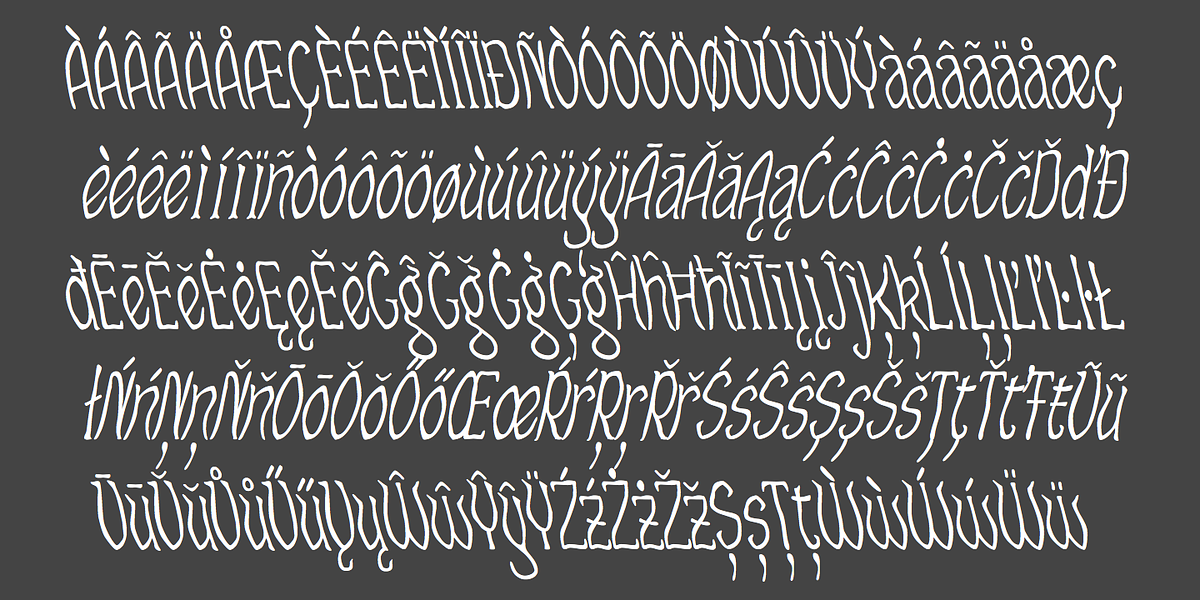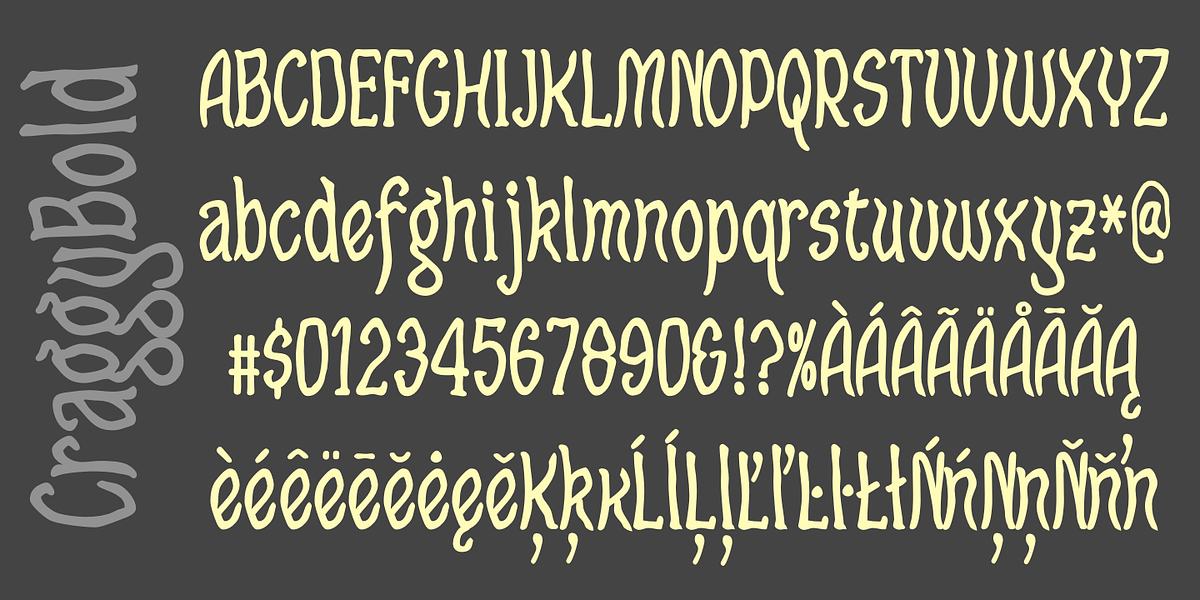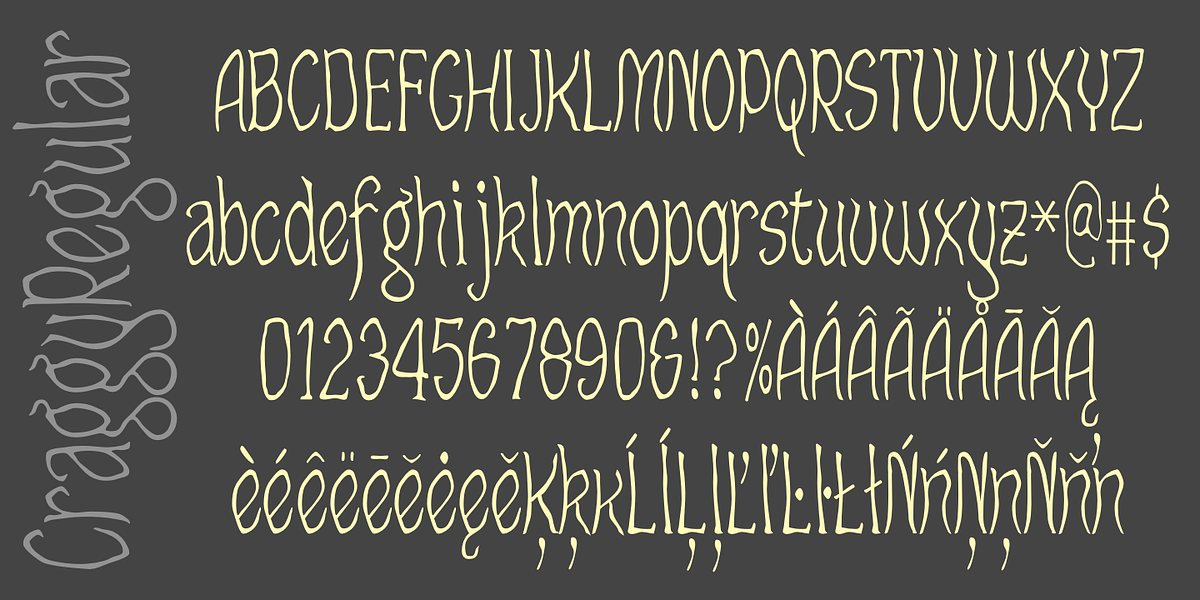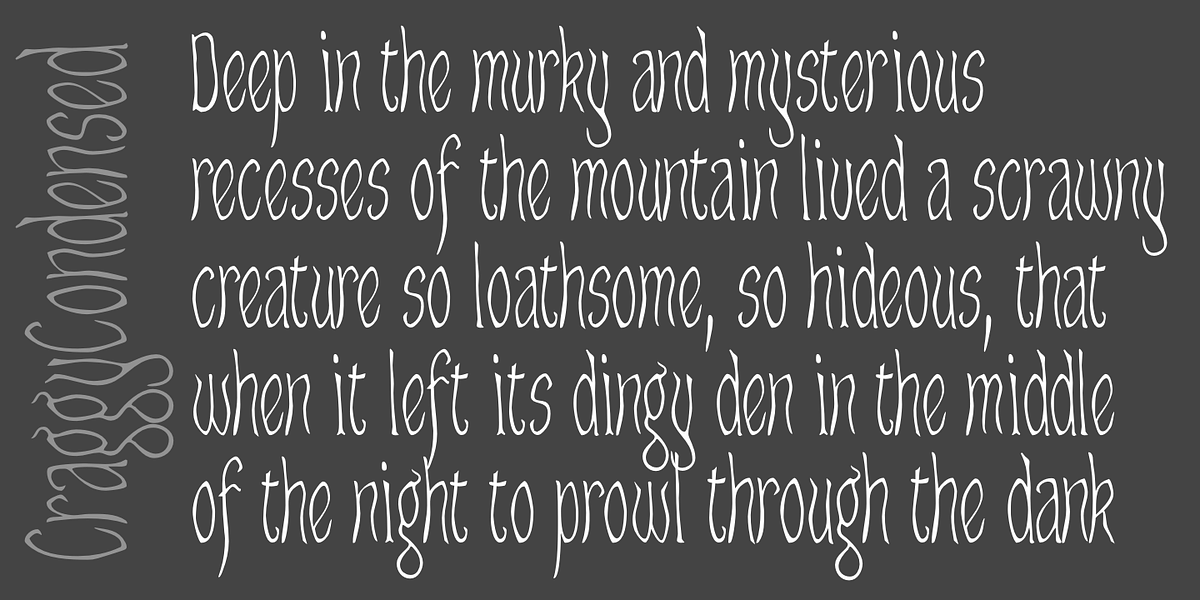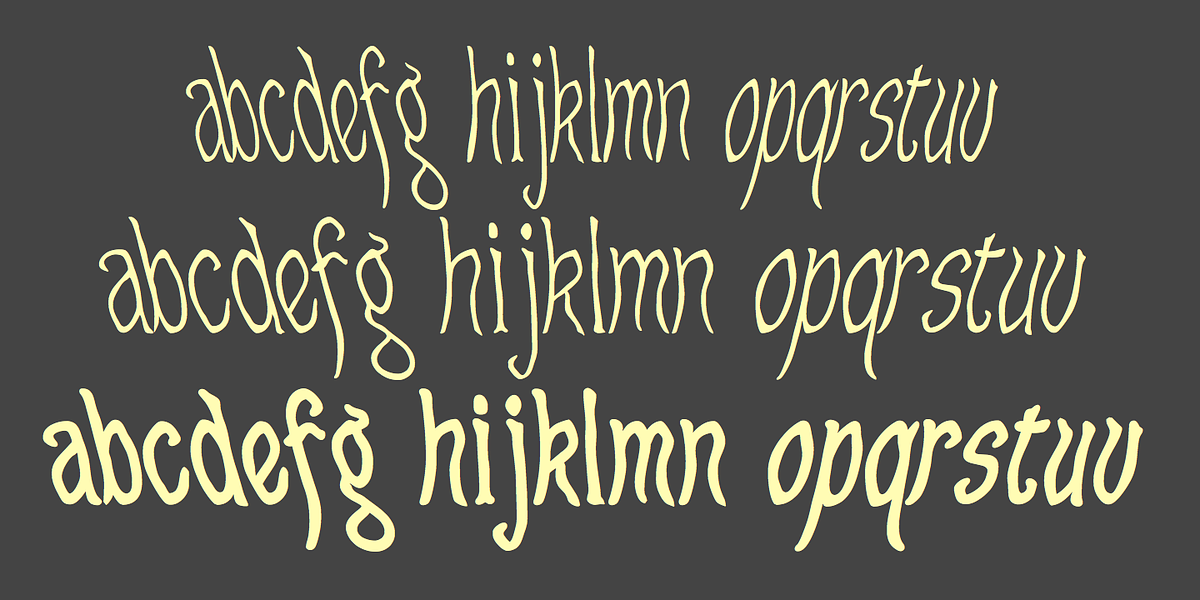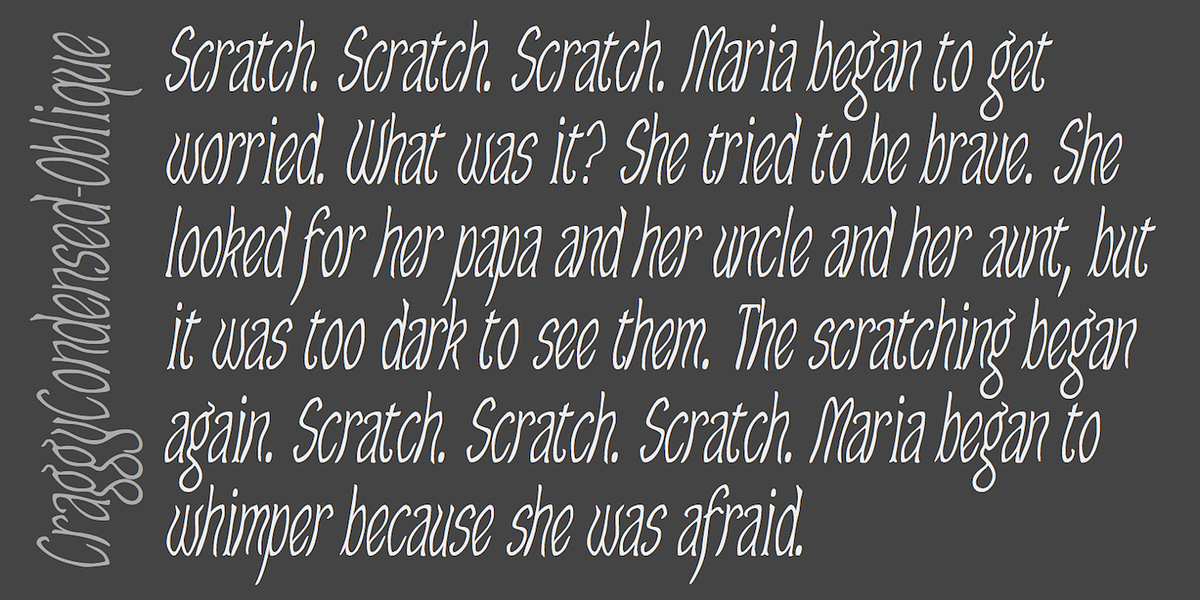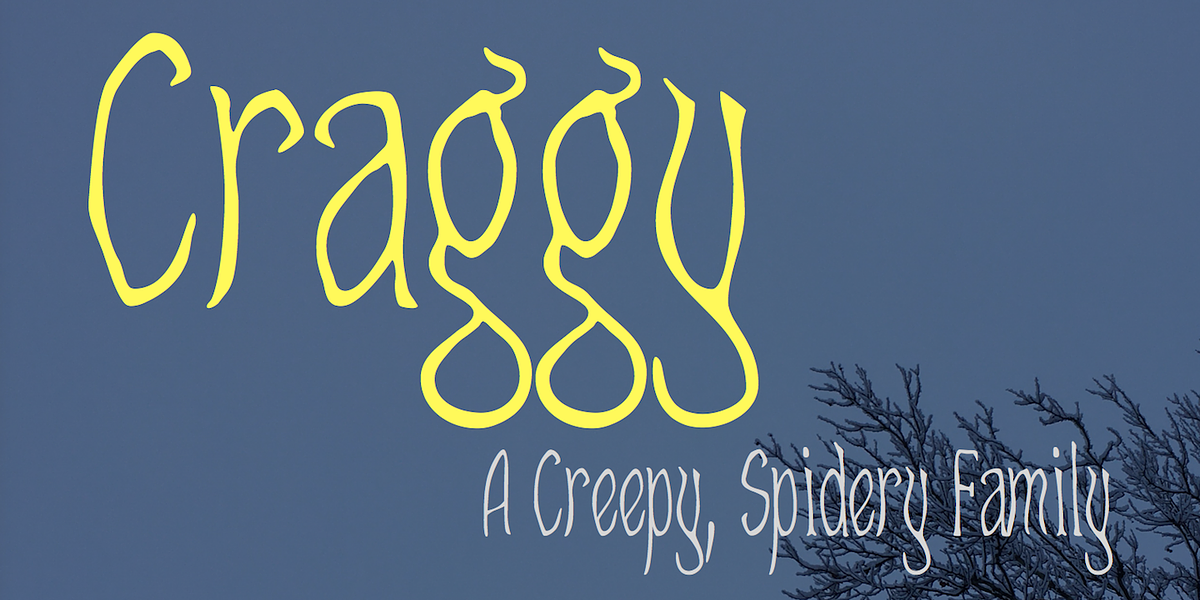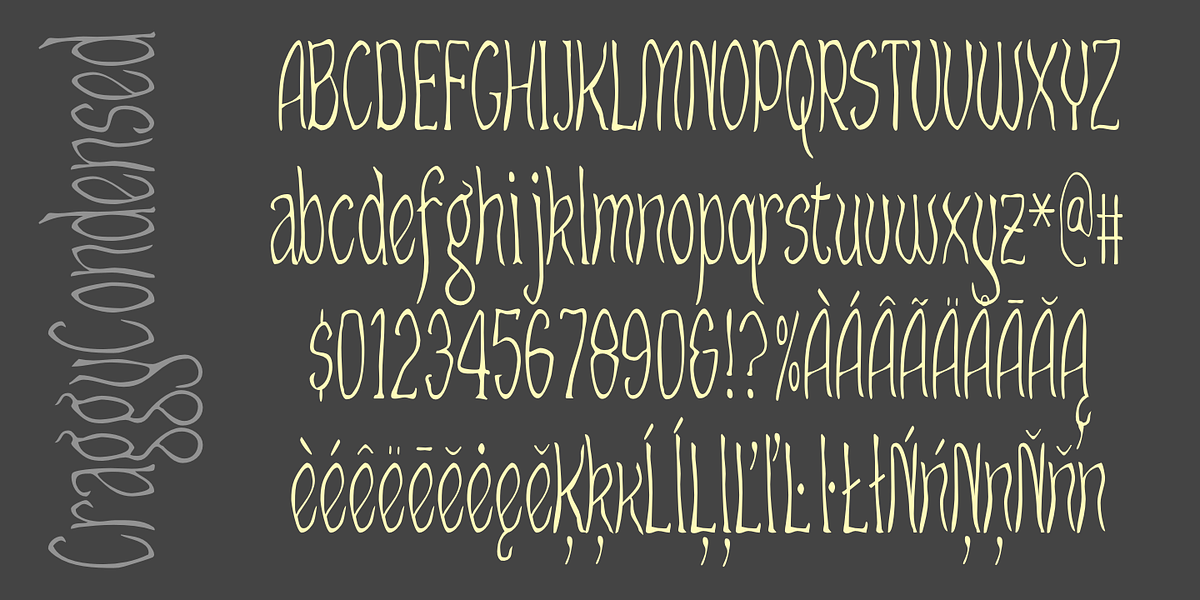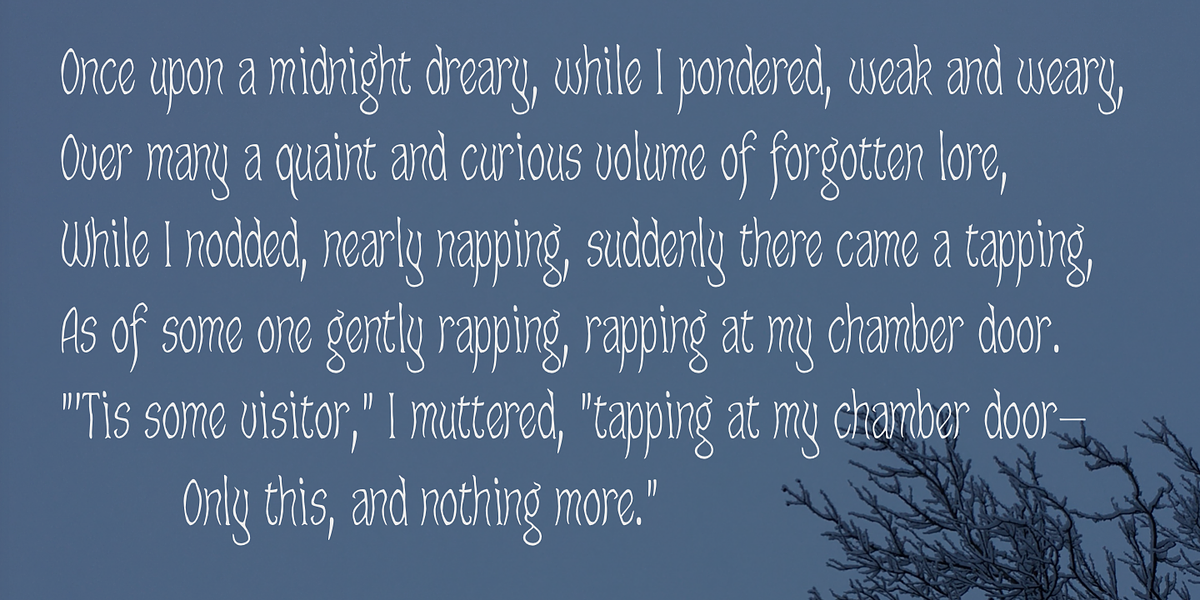
Craggy
Craggy is a Halloween-themed hand-drawn display font. Its narrow and irregular letterforms give it a spidery appearance, while its whimsical nature adds a touch of lightheartedness to the overall spooky aesthetic.